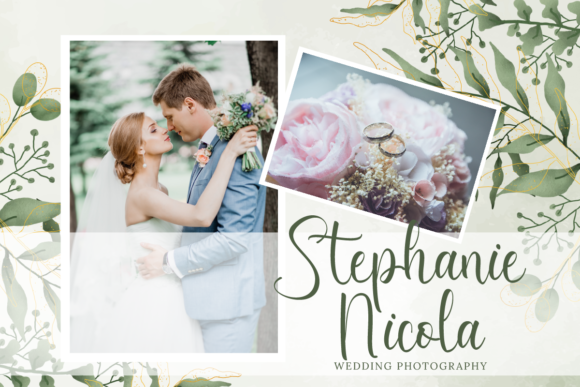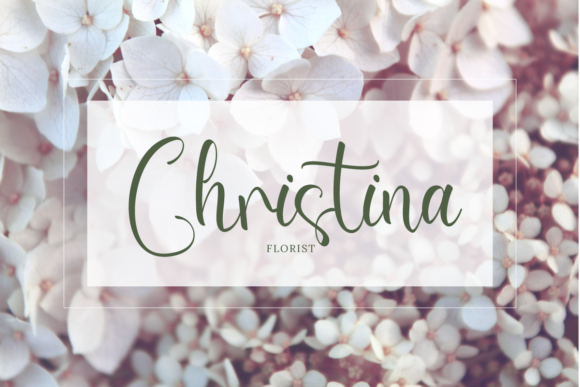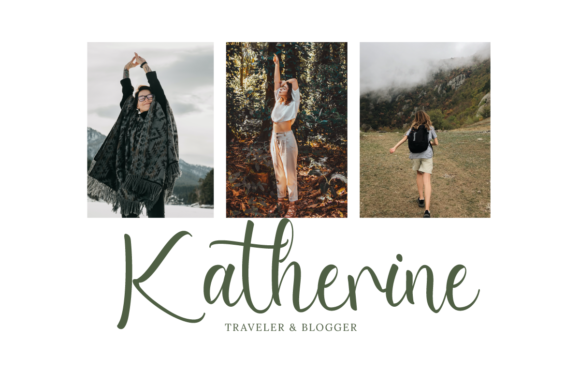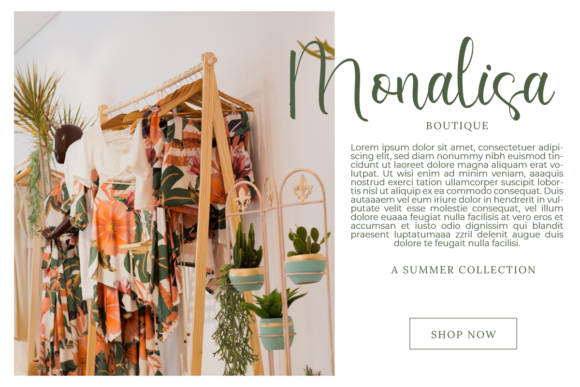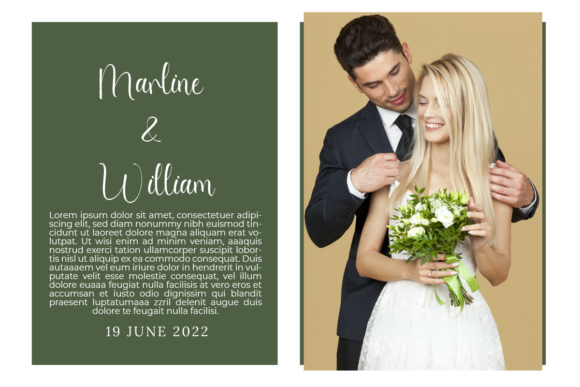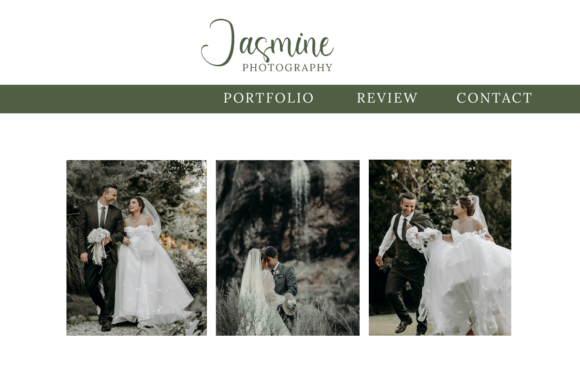
Unleash Your Creativity with Alondra Shayna Font
Have you ever been scrolling through your social media feed and come across a post that stops you in your tracks? Maybe it’s a beautifully designed logo, a stylish graphic, or a cleverly worded phrase that makes you go ‘wow’? That’s the magic of good design, and it’s exactly what you can achieve with the right tools. For designers and creatives, finding the perfect font can be the key to unlocking that special something.
Enter the Alondra Shayna Font, a delicate and fashionable script font that’s perfect for any branding project. Whether you’re working on a logo, a t-shirt design, or a creative product, Alondra Shayna Font is sure to make your project stand out. Its versatility and elegance make it a valuable asset for designers who want to add a touch of sophistication to their work.
Alondra Shayna Font Key Features
- Font Family: Alondra Shayna is a unique, handwritten font designed to add a personal touch to various projects.
- Unique Characteristics: This font features a mix of elegant and playful elements, making it suitable for creative projects, such as invitations, posters, and social media graphics.
Alondra Shayna Font Review
Overall, I think the Alondra Shayna Font has some great qualities, but it’s not without its limitations. Let’s dive in and see what I mean.
- The Alondra Shayna Font is a beautiful script font, perfect for adding a touch of elegance to any design.
- It has a wide range of characters, including punctuation and symbols, which makes it great for use in body text.
- The font is highly customizable, with options for adjusting the weight, size, and color.
- The font can be a bit too ornate for some designs, making it difficult to read at smaller sizes.
- Some of the characters, such as the “g” and “y” ligatures, can be a bit awkward to use.
- The font is not suitable for use in titles or headings, as it can be too decorative and overpowering.
The Alondra Shayna Font is a great addition to any designer’s toolkit, but it’s best used in moderation. When used correctly, it can add a touch of sophistication to any design. However, it’s not suitable for all projects, and designers should be aware of its limitations before using it.
Here are some tips for getting the most out of “Alondra Shayna Font”:
- Use it for titles and headings to add a touch of elegance.
- Combine it with other fonts to create a unique and stylish look.
Some common use cases for “Alondra Shayna Font” include:
Alternatives to “Alondra Shayna Font” for Designers
1. Carolyna Pro Font
Carolyna Pro Font is a elegant and modern sans-serif typeface, perfect for creating a sophisticated and luxurious look. It features a clean and minimalist design, making it ideal for use in high-end branding, fashion, and luxury goods packaging.
Compared to Alondra Shayna Font, Carolyna Pro Font has a more refined and polished look, making it better suited for high-end designs. While Alondra Shayna Font has a more playful and whimsical feel, Carolyna Pro Font is more formal and sophisticated.
Great Vibes Font is a beautiful and elegant script typeface, perfect for creating a romantic and sophisticated look. It features a flowing and connected design, making it ideal for use in wedding invitations, greeting cards, and other special occasions.
Compared to Alondra Shayna Font, Great Vibes Font has a more traditional and classic feel, while Alondra Shayna Font has a more modern and playful look. Great Vibes Font is better suited for formal and traditional designs, while Alondra Shayna Font is better suited for modern and trendy designs.